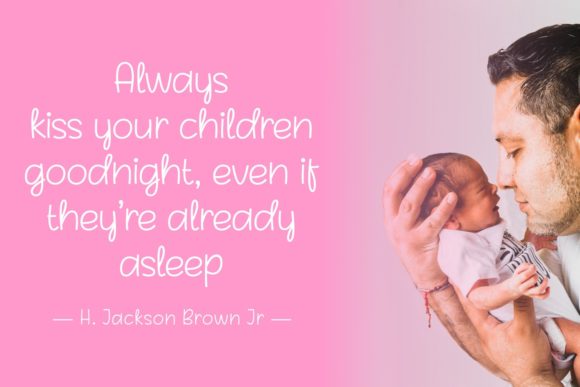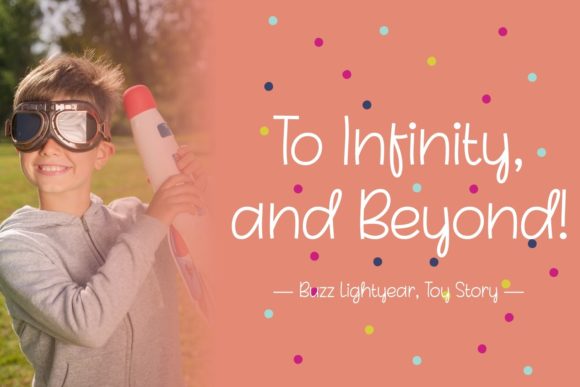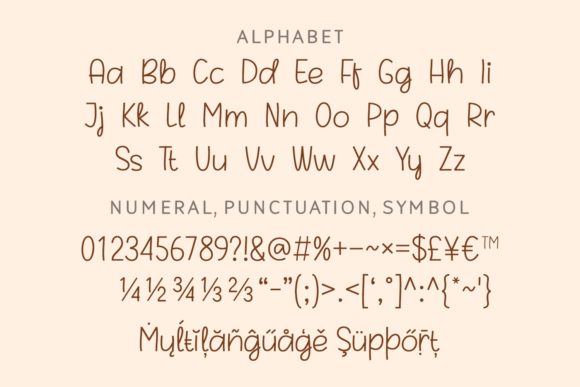
Introducing Children Time Font: A Delightful Handwritten Font for Your Design Projects
Are you a designer or crafter looking for a font that can add a playful touch to your next project? Look no further than Children Time Font! This delightful handwritten font is perfect for creating fun and engaging designs that are sure to capture the attention of your audience. With its cute swirls and adorable handwritten style, Children Time Font is a great choice for a wide range of design projects.
What is Children Time Font?
Children Time Font is a delicate and fun handwritten font that is designed to resemble an adorable handwritten style. The font features cute swirls and playful curves that give it a unique and charming appearance. It’s perfect for adding a personal touch to your designs and making them stand out from the crowd.
Key Features of Children Time Font
- Handwritten style: Children Time Font has a beautiful handwritten style that is perfect for creating personal and engaging designs.
- Cute swirls: The font features cute swirls and playful curves that add a touch of whimsy to your designs.
- Delicate: Children Time Font is a delicate font that is perfect for creating designs that are both fun and elegant.
- Playful: The font has a playful feel that’s perfect for creating designs that are fun and engaging.
Why Use Children Time Font?
There are many reasons why you should consider using Children Time Font in your next design project. Here are just a few:
- Add a personal touch: Children Time Font is a great way to add a personal touch to your designs and make them stand out from the crowd.
- Create engaging designs: The font’s playful and whimsical style is perfect for creating designs that are fun and engaging.
- Perfect for kids’ designs: Children Time Font is a great choice for designs aimed at kids, such as children’s books, posters, and flyers.
Design Ideas Using Children Time Font
Children Time Font is a versatile font that can be used for a wide range of design projects. Here are some design ideas to get you started:
- Children’s book covers: Use Children Time Font to create eye-catching covers for children’s books.
- Kids’ party invitations: Create fun and playful invitations for kids’ parties using Children Time Font.
- Posters and flyers: Use the font to create colorful posters and flyers for kids’ events and activities.
- Digital graphics: Create digital graphics, such as social media graphics and blog headers, using Children Time Font.
In conclusion, Children Time Font is a delightful handwritten font that is perfect for adding a playful touch to your design projects. With its cute swirls and adorable handwritten style, it’s a great choice for designers and crafters who want to create fun and engaging designs. Whether you’re creating a children’s book cover, a kids’ party invitation, or a digital graphic, Children Time Font is a great choice. So why not give it a try and see what amazing designs you can create?